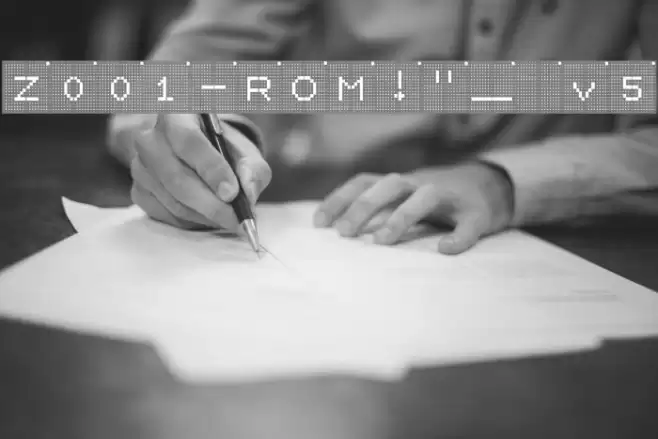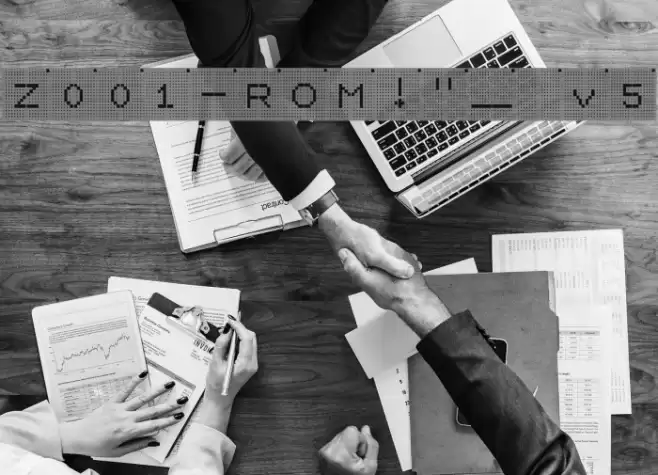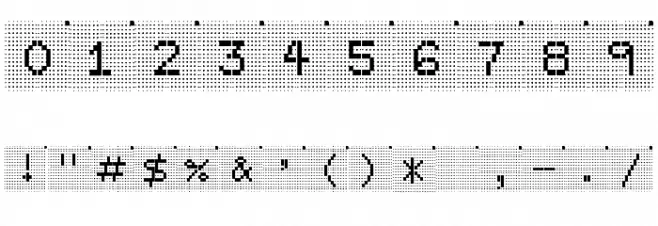
Z001-ROM!"_ v5 Font
Z001-ROM!"_ v5 Description
This font features a pixelated, monospaced design reminiscent of early digital displays and typewriters. Each character is constructed with a grid-like pattern, giving it a retro, digital aesthetic. The uniformity in character width ensures a consistent and orderly appearance, making it ideal for coding or any application requiring precise alignment. The uppercase and lowercase letters maintain a similar height, enhancing readability in small sizes. The numerals and special characters are distinct and clear, adhering to the same pixelated style, which adds to the cohesive look of the font.
A pixelated, monospaced font with a retro digital aesthetic from Valentine fonts.
- Proposed Projects: Ideal for retro-themed designs, coding environments, digital art projects, and any application requiring precise alignment.
- Overall Style: Retro
- Use Case: Coding, Digital displays, Retro designs